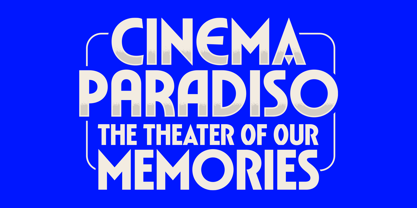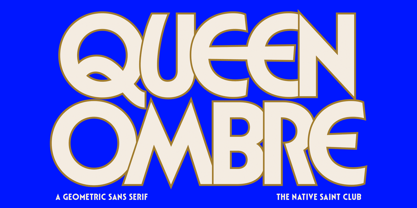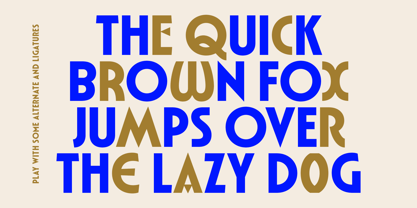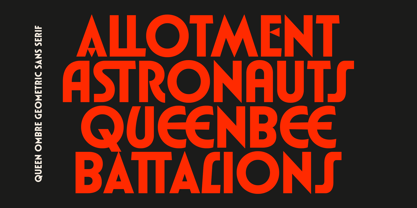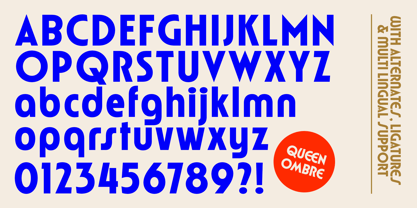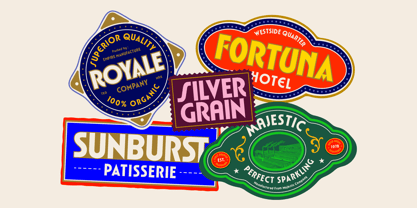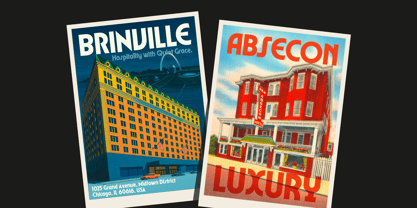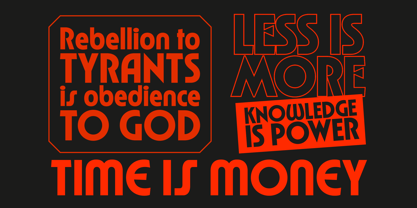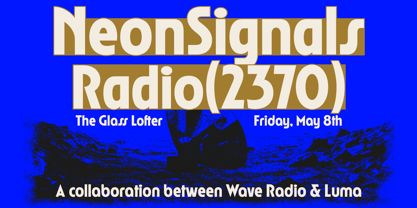
Queen Ombre
by The Native Saint Club
The Queen Ombre Font Family was designed by Bagas Ferdiansah, Septianto Nugroho and published by The Native Saint Club. Queen Ombre contains 1 styles. More about this family
TNSC Queen Ombre is a bold and stylish geometric sans serif designed to bring a modern yet timeless touch to your creative projects. With its strong letterforms, unique alternates, and playful ligatures, this typeface balances retro charm and contemporary elegance. Perfect for branding, logos, posters, packaging, magazine headlines, social media graphics, and more. NOTE : Please Check the Help File first and for all the characters are also available, accessible in the Adobe Illustrator Glyphs Panel, or in Adobe Photoshop Character Open Type Panel.
Designers: Bagas Ferdiansah, Septianto Nugroho
Foundry: The Native Saint Club